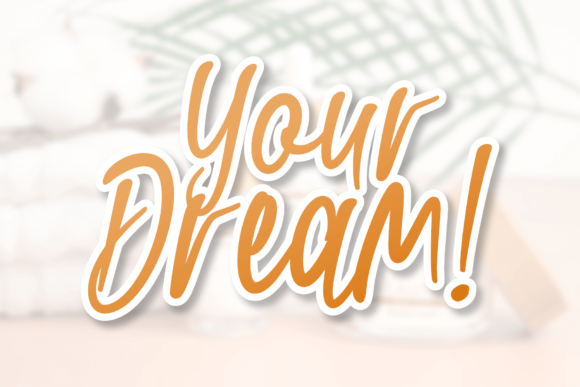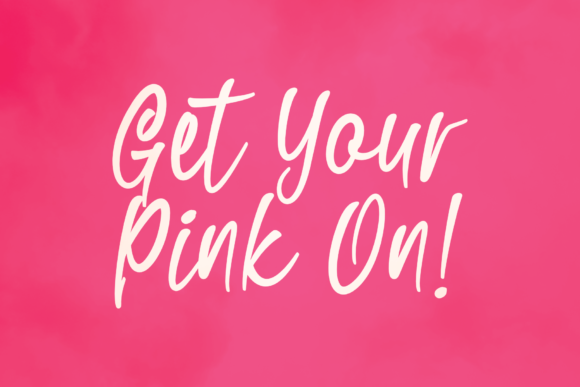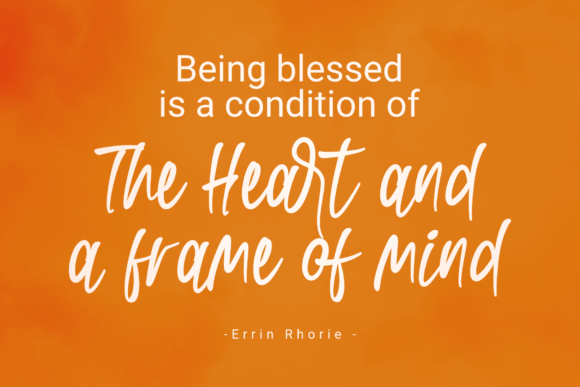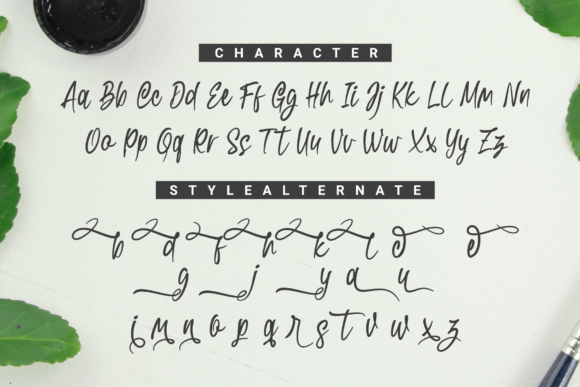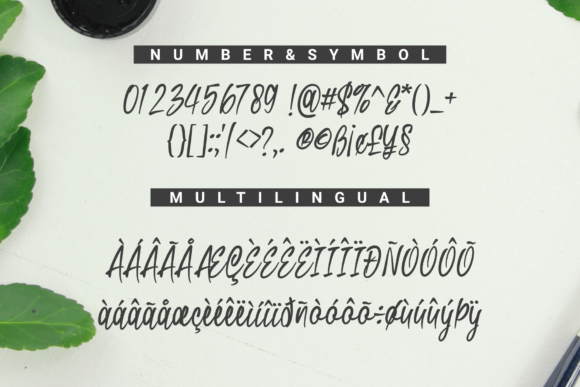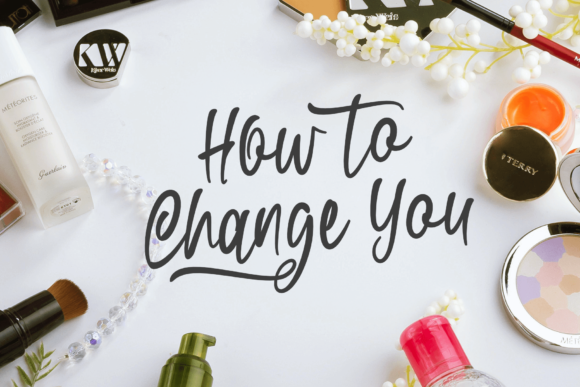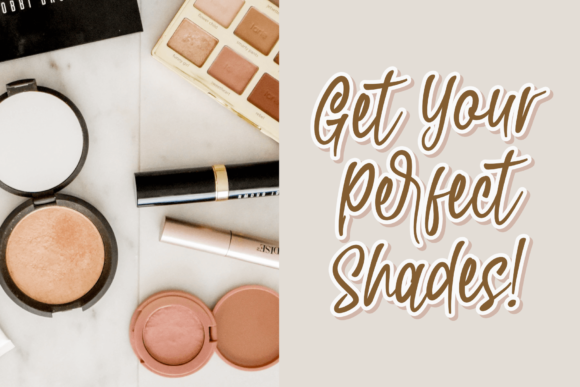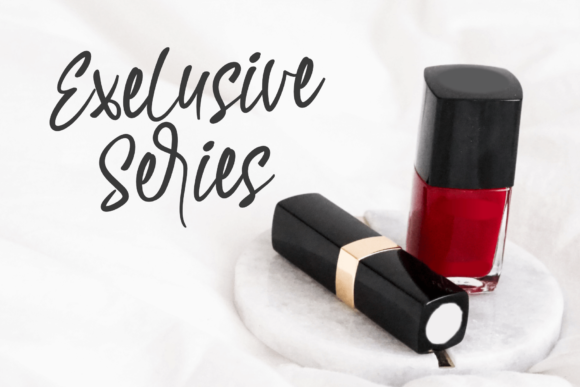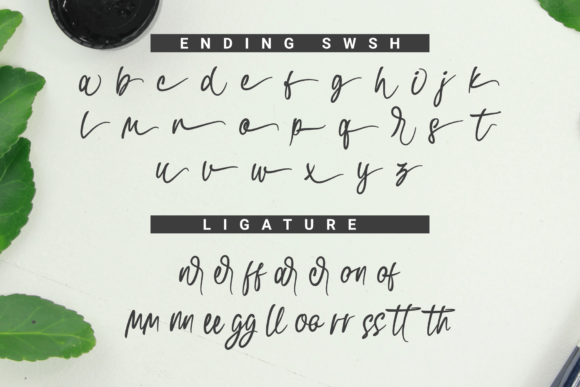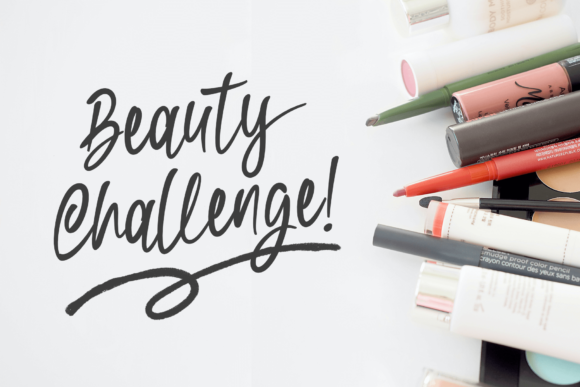
Swishine Font
About Swishine Font
Swishine is a modern, freestyle aesthetic handwritten font, perfect for beauty branding, cosmetics, wedding invitations and other design branding.